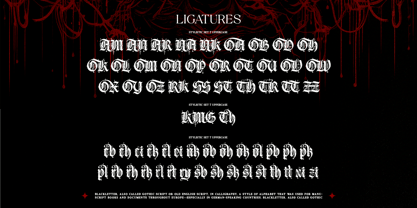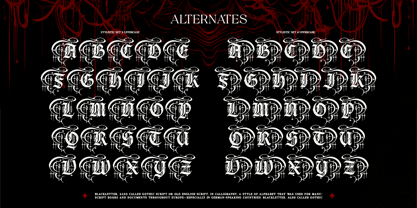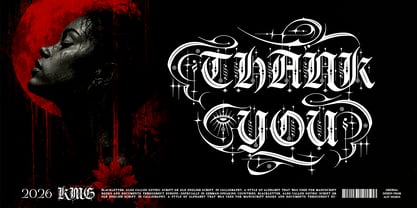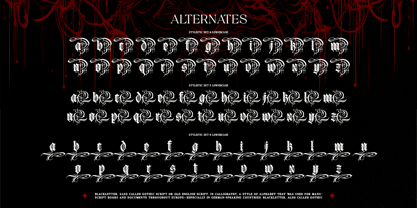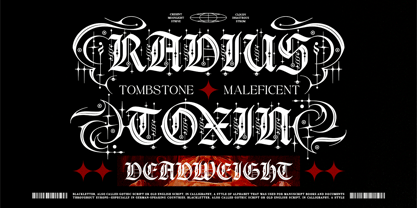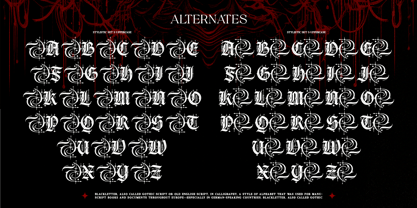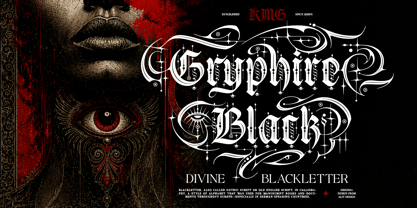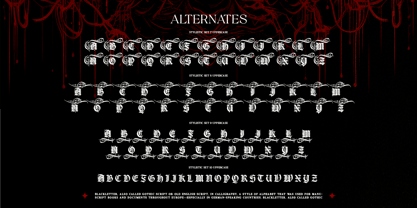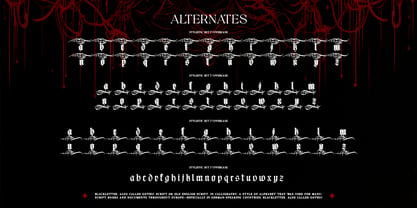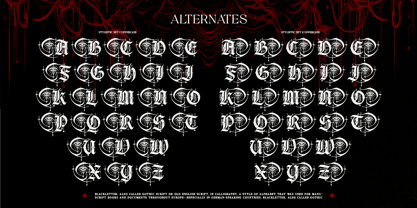
Gryphire Black
The Gryphire Black Font Family was designed by Alit Suarnegara and published by Alit Design. Gryphire Black contains 1 styles. More about this family
Introducing Gryphire Black, a divine blackletter typeface that masterfully balances classic gothic typography with a striking, dark mystical aesthetic. Meticulously crafted to make a bold statement, Gryphire Black breathes life into the traditional old English script by injecting it with intricate, ornate details, sharp edges, and celestial accents.
Perfect for designers looking to channel a rebellious, dark, or vintage vibe, this font is the ultimate choice for tattoo studio branding, heavy metal band merchandise, streetwear apparel, occult-themed designs, gothic posters, and striking logotypes.
What sets Gryphire Black apart is its massive character set. Packed with a staggering 1,069 glyphs, this typeface offers unparalleled creative freedom. It features an extensive collection of stylistic alternates (SS01 to SS10), elegant ligatures, and intricate swashes, allowing you to customize every word to perfection and create truly unique, custom-looking typography.
Features:
• 1,069 Total Glyphs for endless customization
• Stylistic Alternates (SS01 – SS10) to mix and match letterforms
• Standard & Discretionary Ligatures for smooth, natural typography
• Extensive Multilingual Support covering a wide range of Latin-based languages
• Numeral & Punctuation
Whether you are designing a celestial breakthrough poster, a classic stayover elegant logo, or diving into dark fantasy editorial designs, Gryphire Black provides the intricate tools you need to make your project unforgettable.